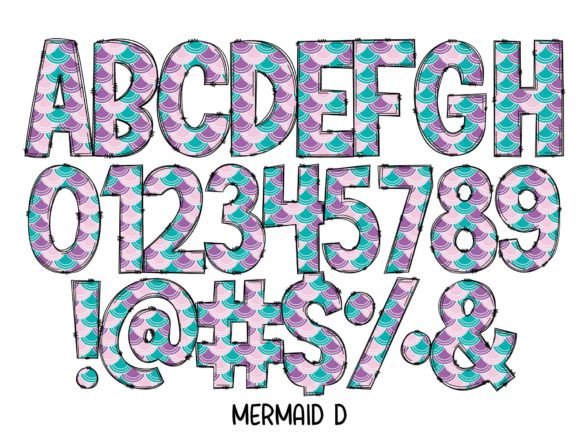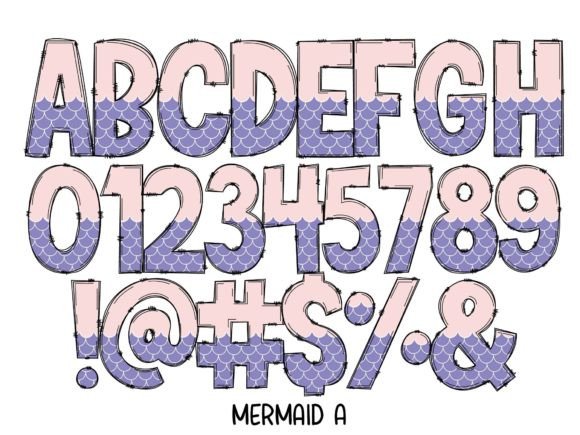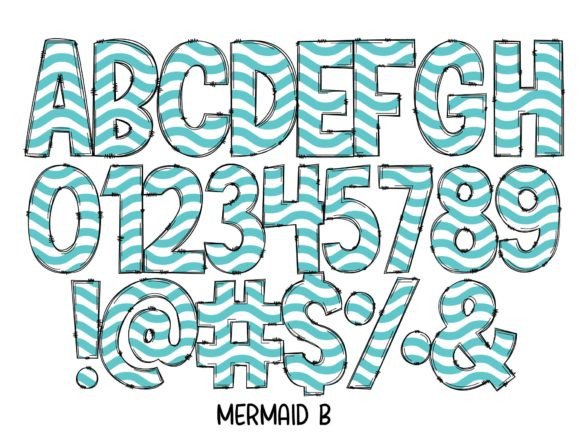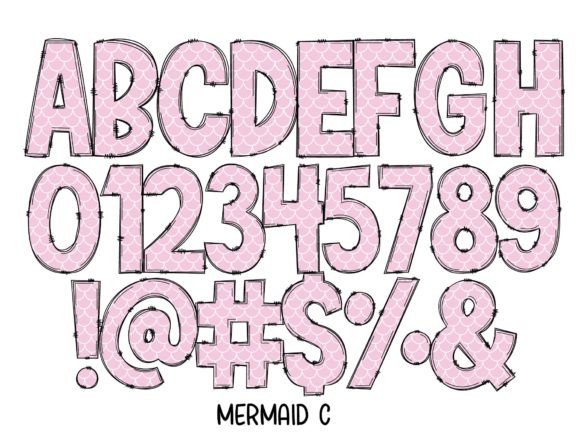
Introduction to Mermaid a Font
Mermaid A is a cool and cute-looking Color font.
Add to each of your party invitations, swimming gatherings, or pretty much any design that requires a touch of youth and joy .
Key Features of Mermaid a Font